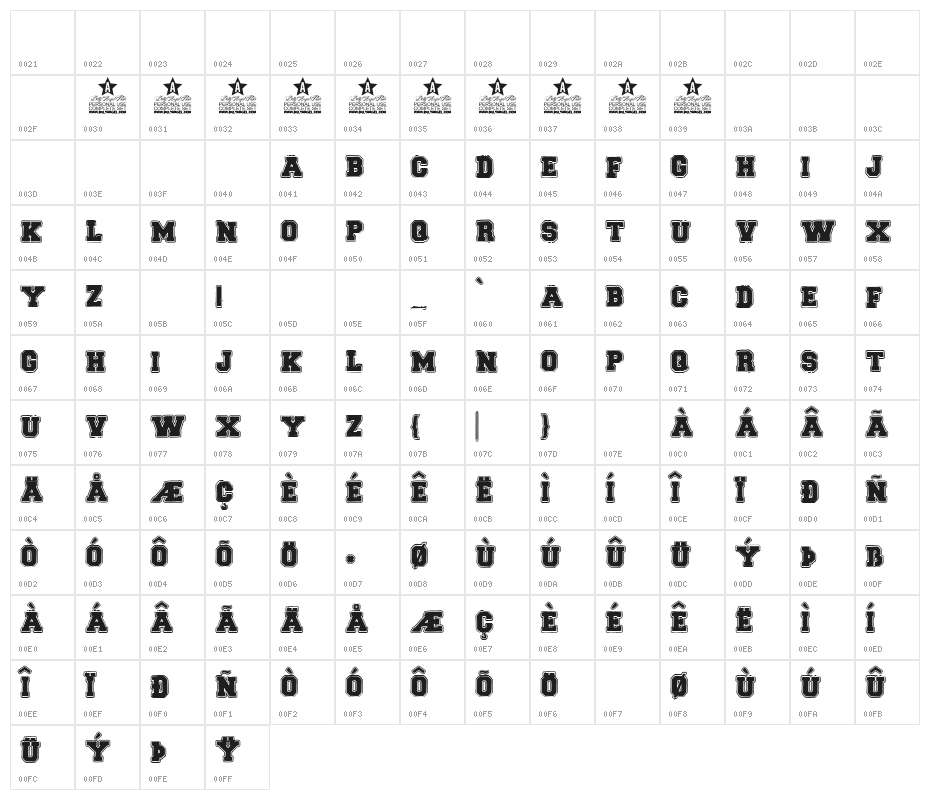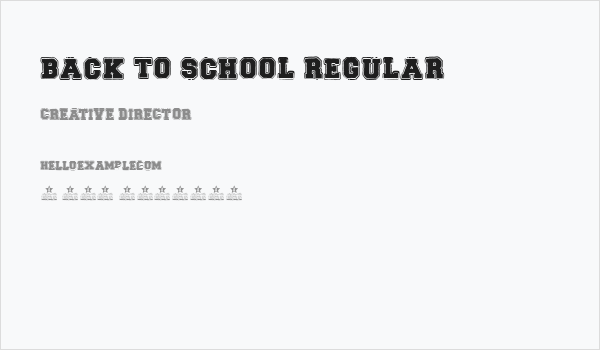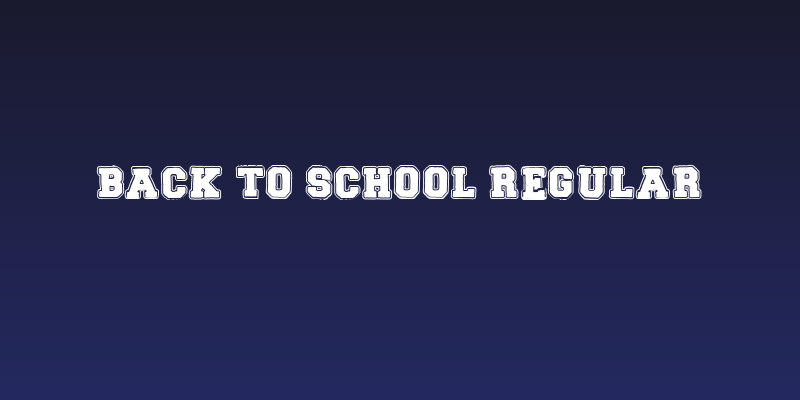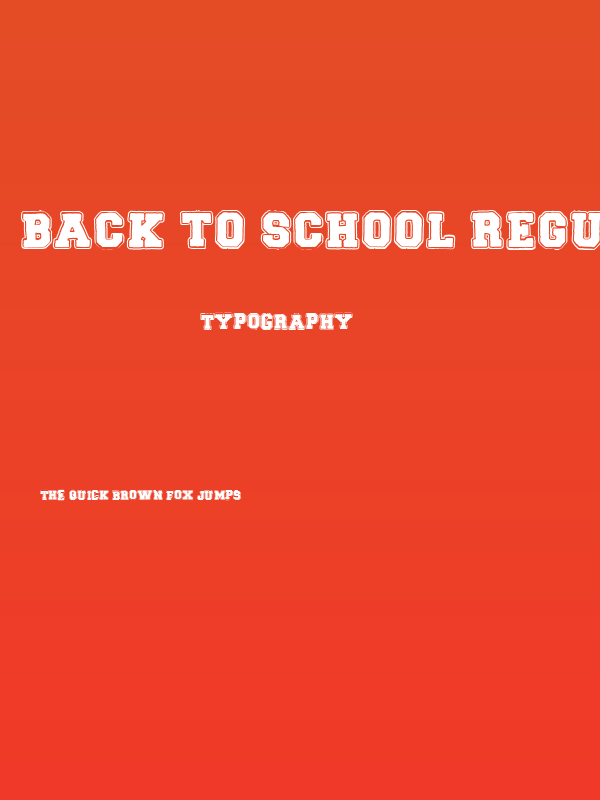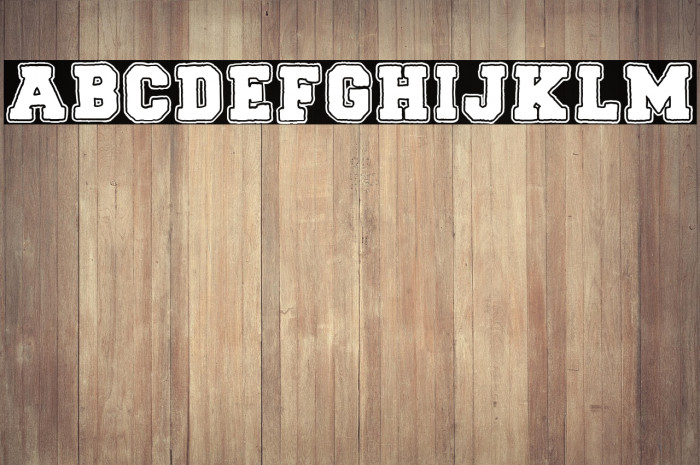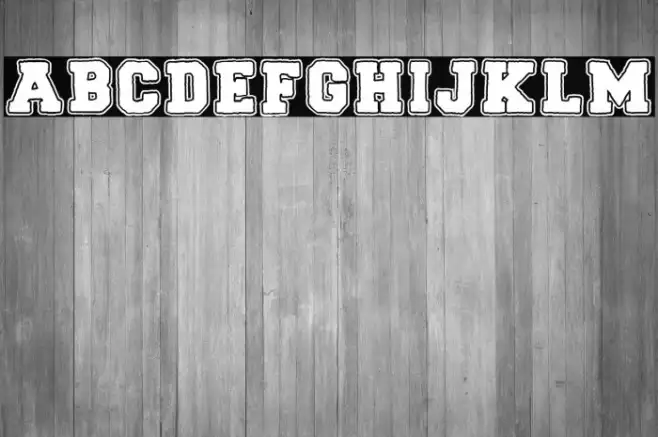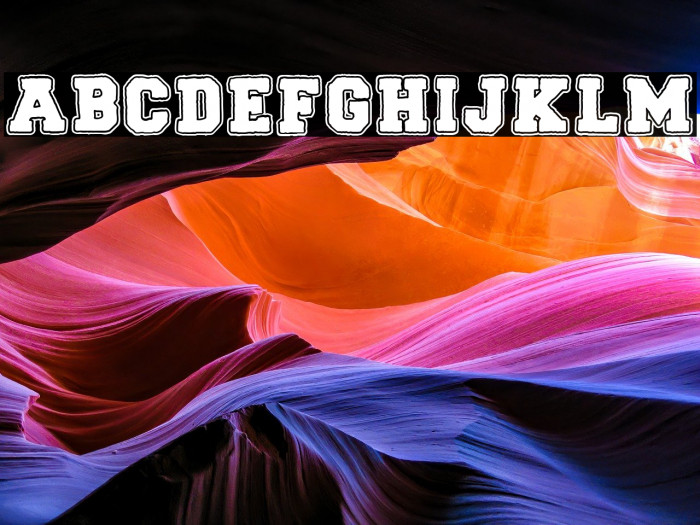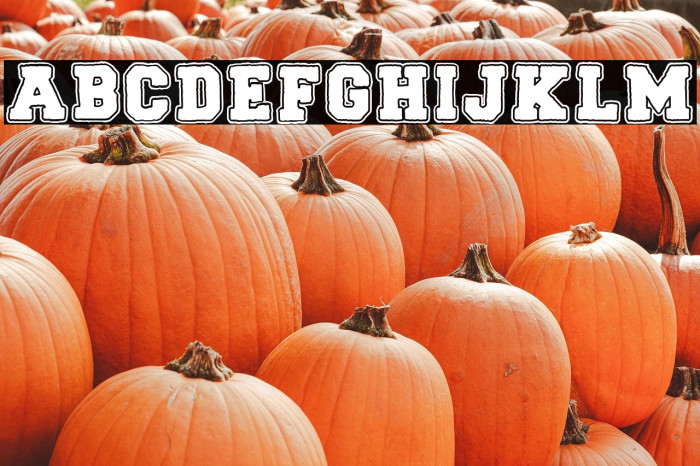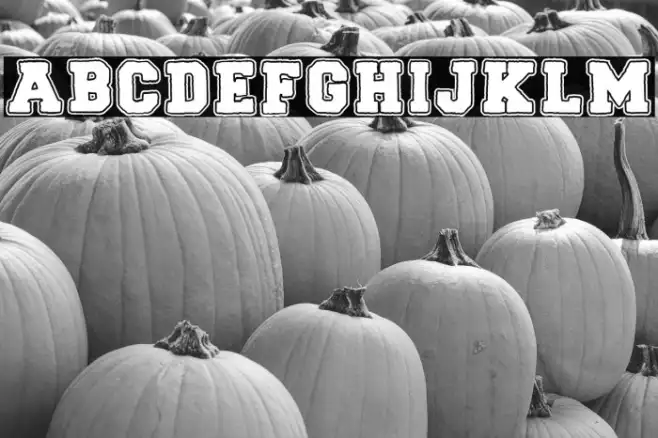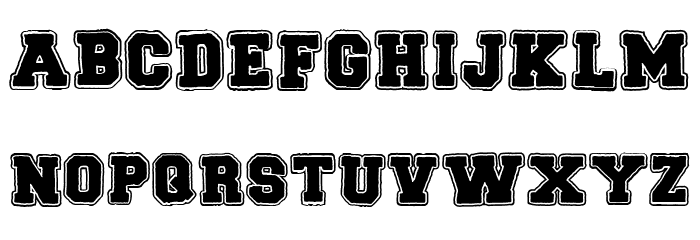
BACK TO SCHOOL Regular Font
BACK TO SCHOOL Regular Description
This font features a bold and rugged design with a strong presence, characterized by thick, blocky letters that have a slightly distressed texture. The uppercase letters are uniform in height, creating a cohesive and structured appearance. The font's style is reminiscent of vintage collegiate or sports lettering, making it ideal for projects that require a bold and impactful look. The characters are well-spaced, ensuring readability while maintaining a distinctive style. The overall design is both classic and versatile, suitable for a variety of creative applications.
| Proposed Projects | Ideal for sports team logos, school event posters, retro-themed designs, and merchandise branding. |